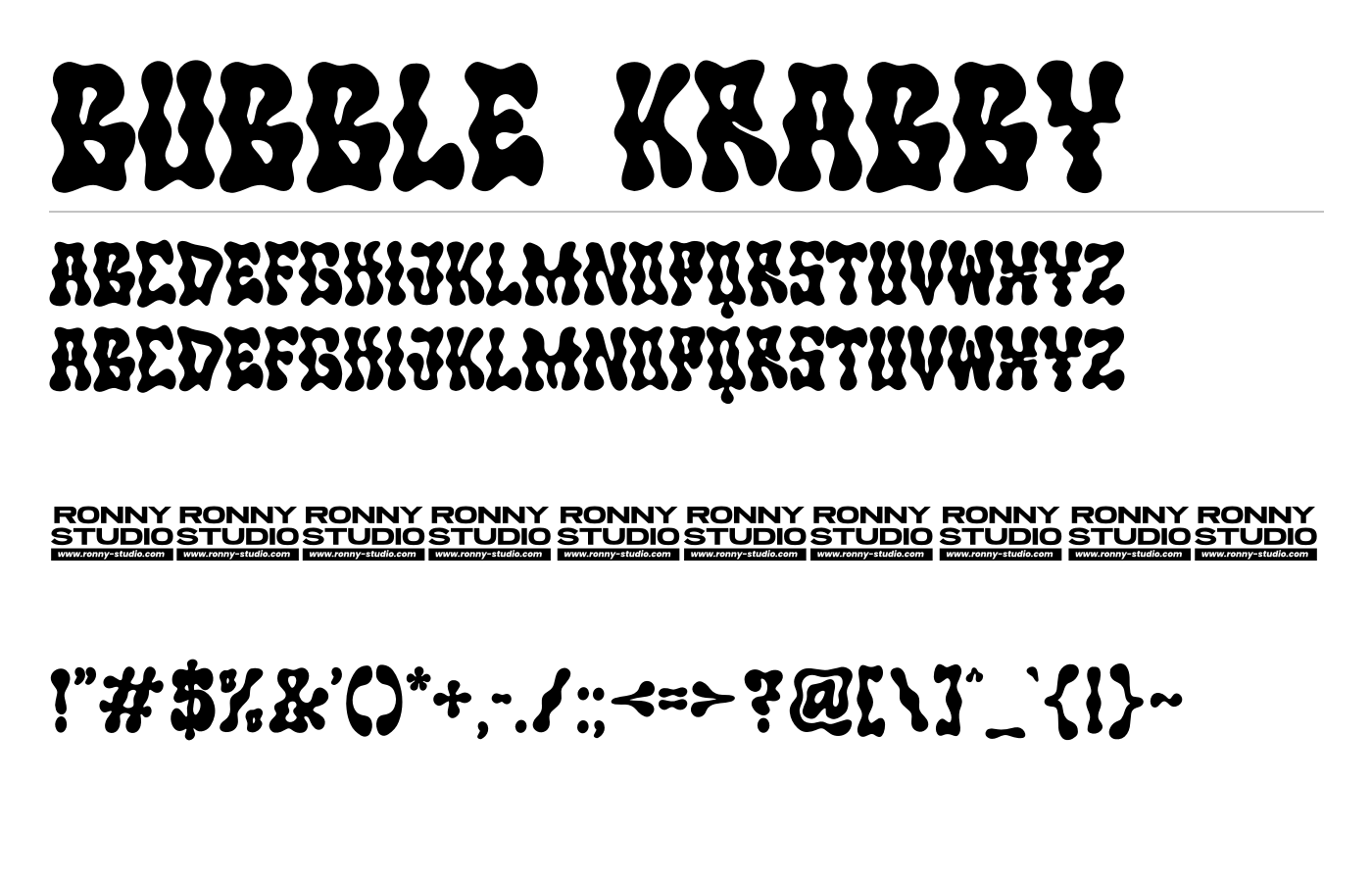
Bubble Krabby is a playful, bold display font characterized by its bubbly, irregular letterforms that create a fun and energetic vibe. Its heavy weight and organic shapes make it perfect for eye-catching headlines, posters, or branding that aims to convey creativity and a quirky personality. This font works well in casual, youthful contexts where a distinctive and lively style is desired.
Bubble Krabby Font
About Bubble Krabby Font
| Designer | Rony Rizki Jaya |